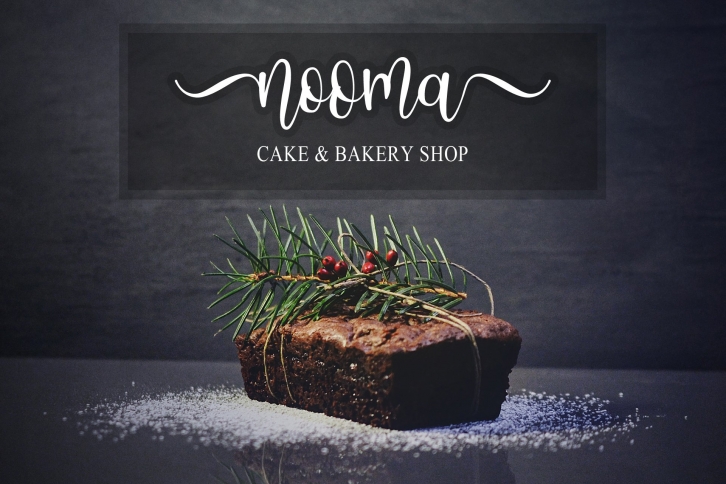
Angelic is a trendy and unique font with an authentic style. It was designed by Mas Fik and it's a great choice for creative people who need such a font. It was released on March 23, 2020 and the file size is 17.27 MB. Angelic will add an organic vibe to any design idea!